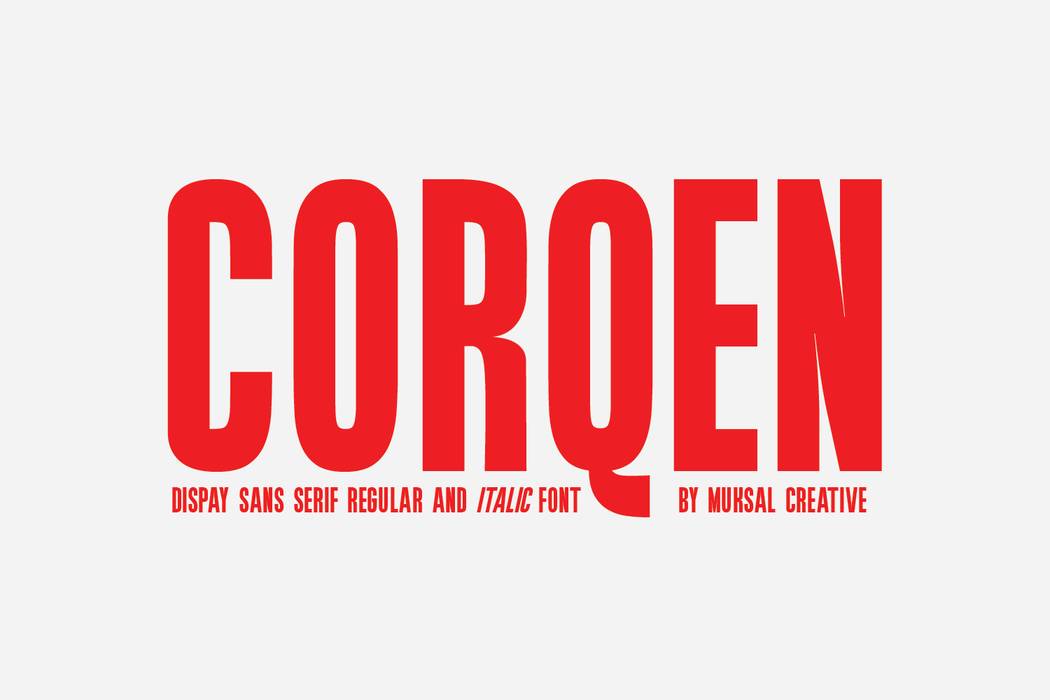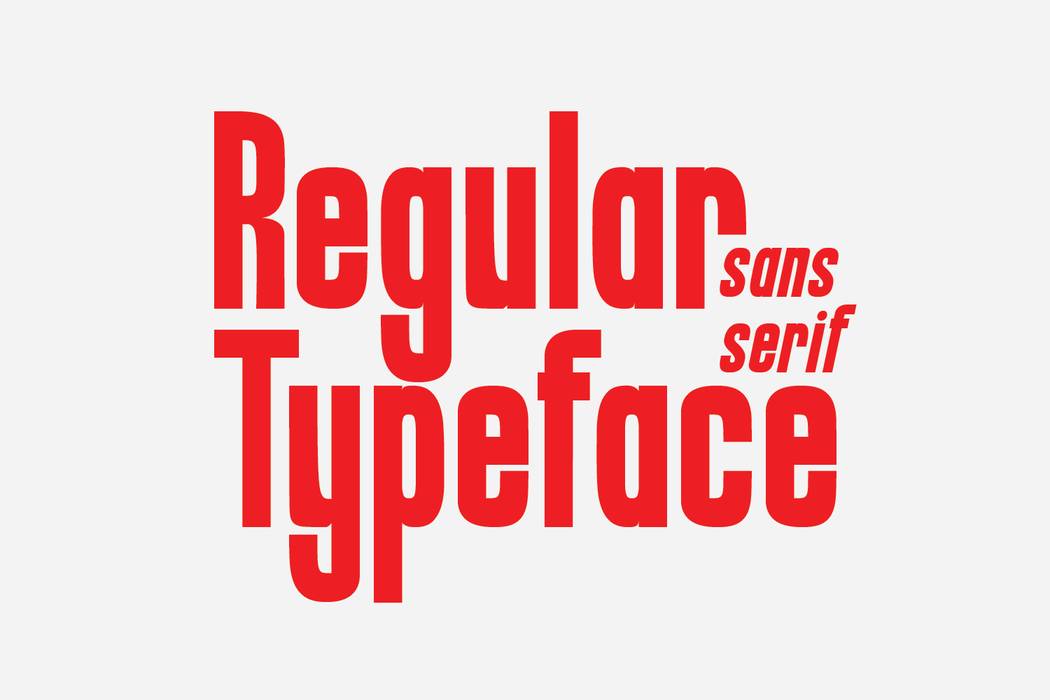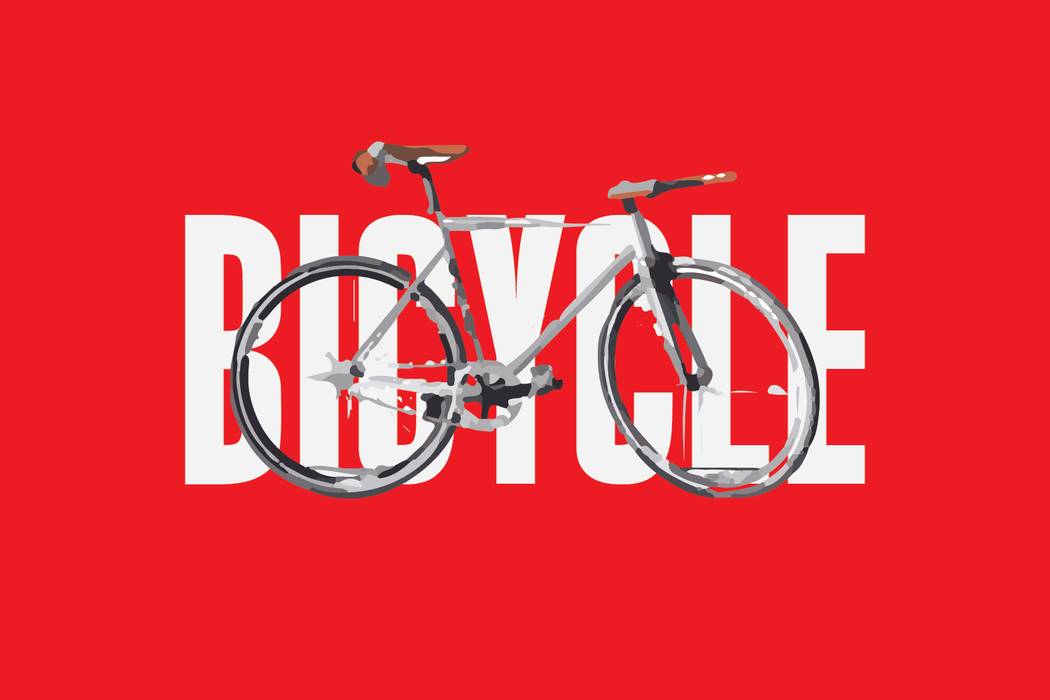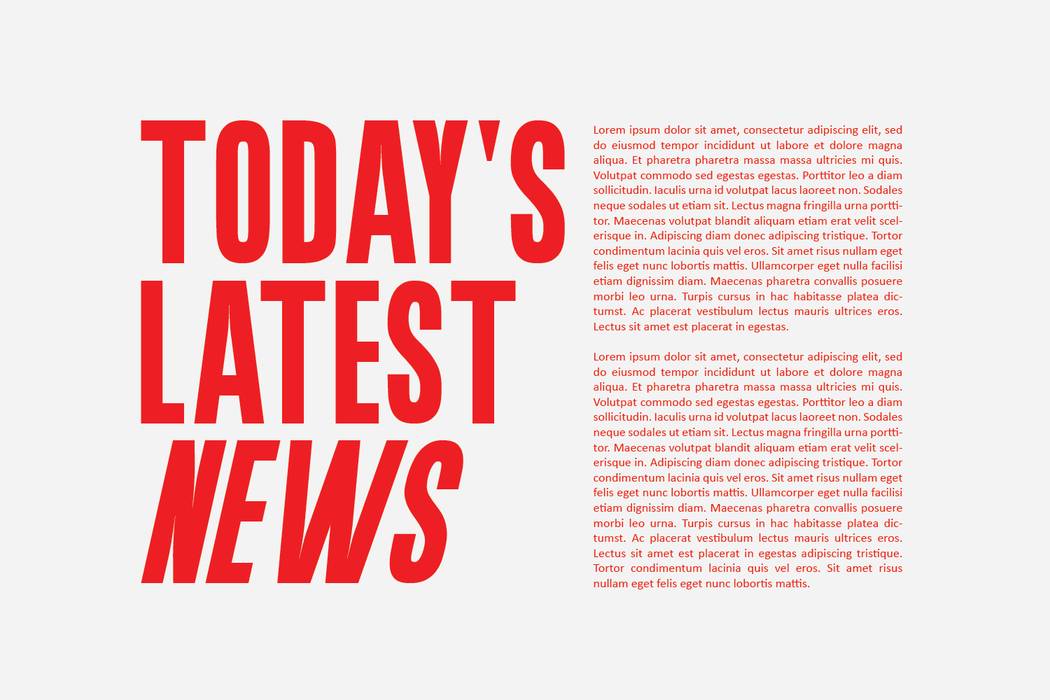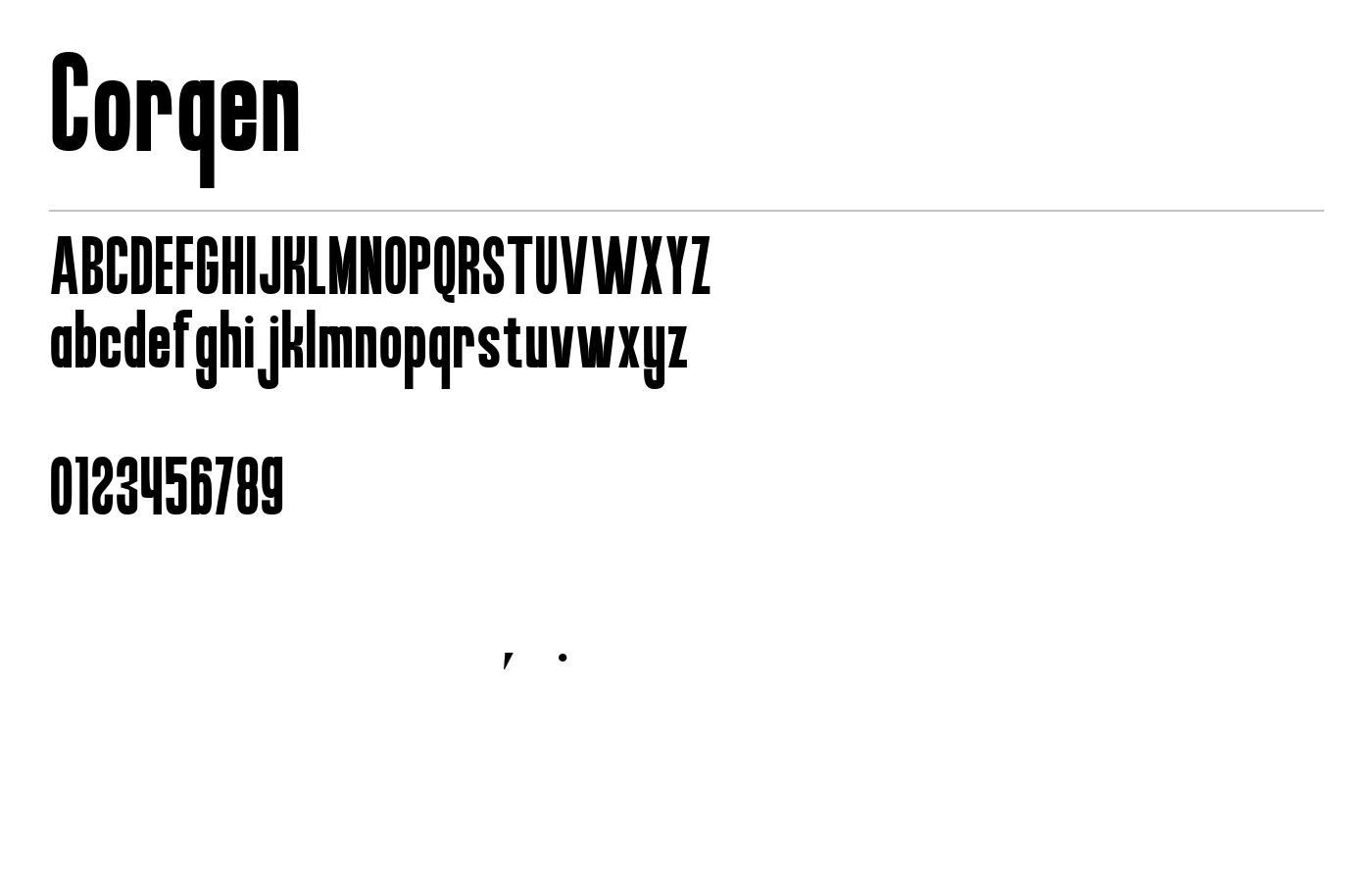
Corqen is a bold, condensed sans-serif font with a strong vertical emphasis, featuring uniform stroke weight and tight letter spacing that create a striking, modern presence. Its tall x-height and clean, geometric shapes make it ideal for impactful headlines and branding where a confident, urban feel is desired. This font works well in logos, posters, and editorial design, offering a stylish and bold character without sacrificing readability.
Corqen Font
About Corqen Font
| Font family | Corqen Font |
| Designer | Muksal Creative |